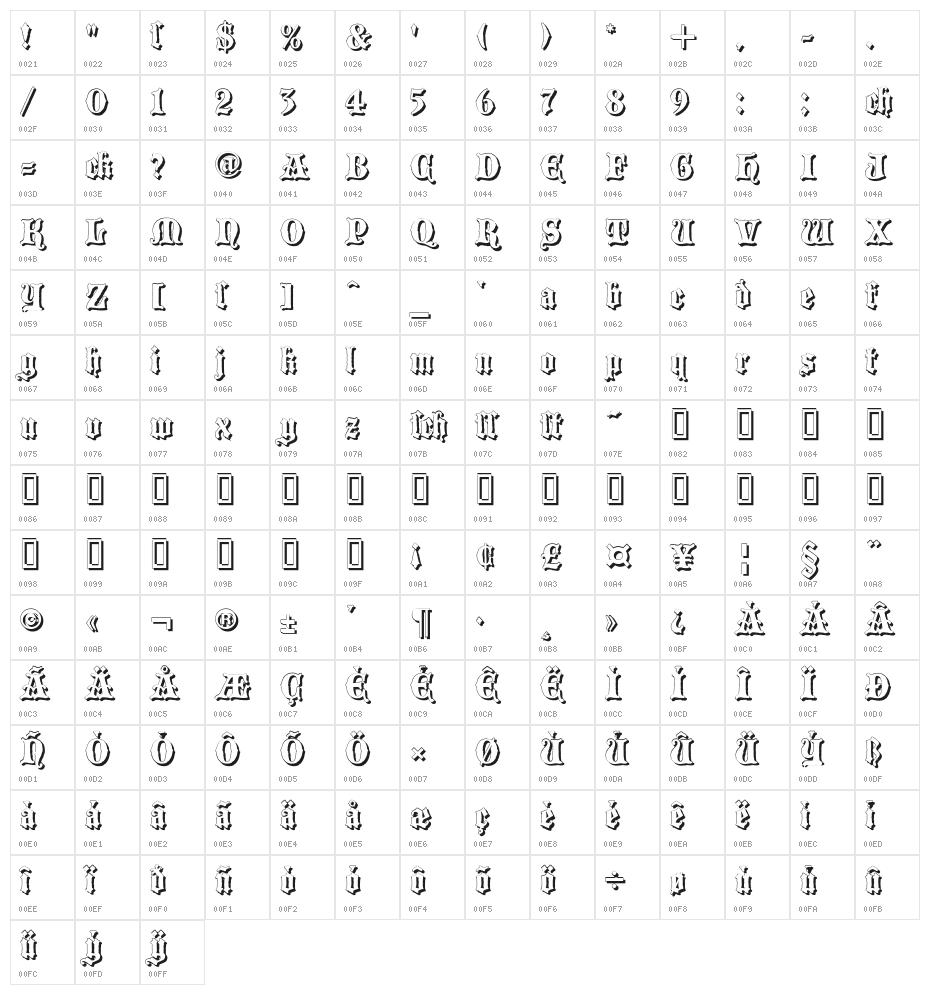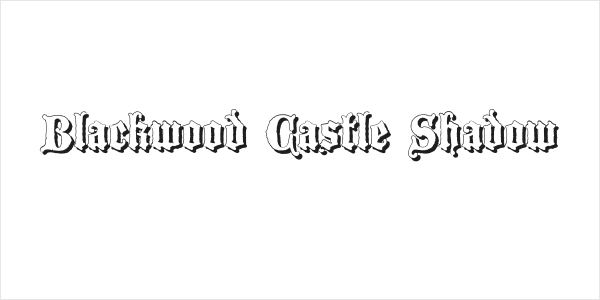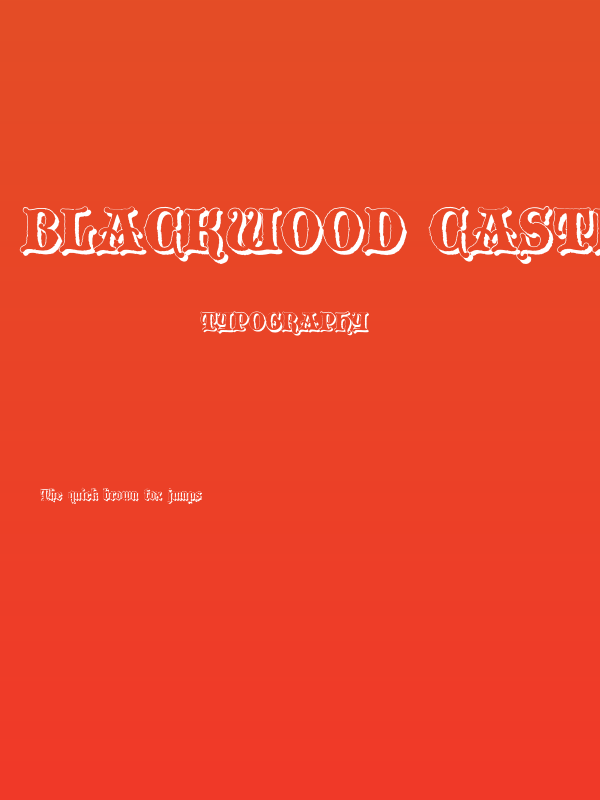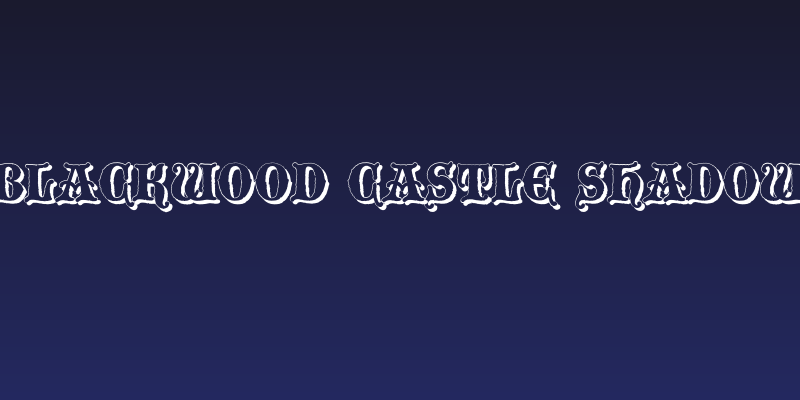
Blackwood Castle Shadow Font
Blackwood Castle Shadow Description
This font features a bold, dramatic style with a distinct shadow effect that gives it a three-dimensional appearance. The characters are reminiscent of medieval or Gothic script, with intricate detailing and sharp edges that convey a sense of strength and tradition. The uppercase and lowercase letters maintain a consistent design, with the shadow adding depth and emphasis. Numbers and special characters are equally stylized, ensuring a cohesive look across all text elements. This font is ideal for projects that require a historical or fantasy theme, offering a unique blend of elegance and power.
| Proposed Projects | Perfect for fantasy book covers, medieval-themed event posters, or video game graphics. |